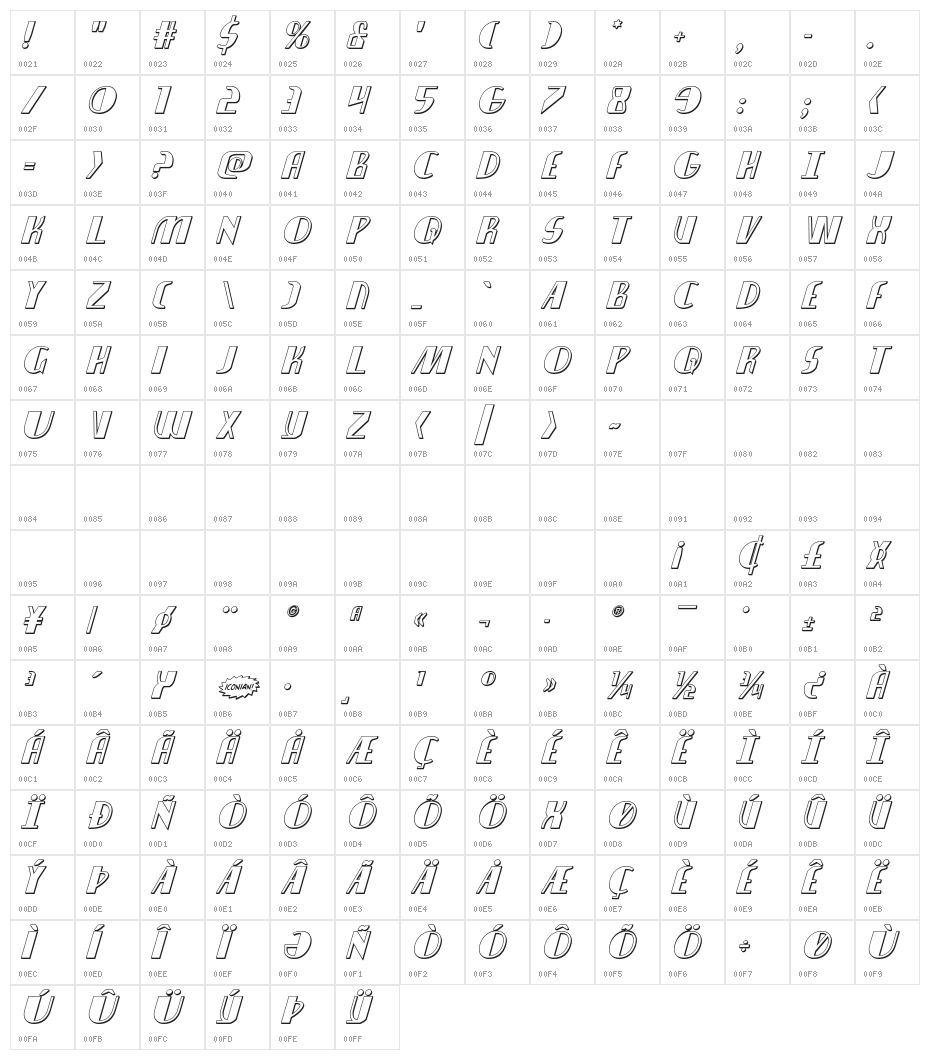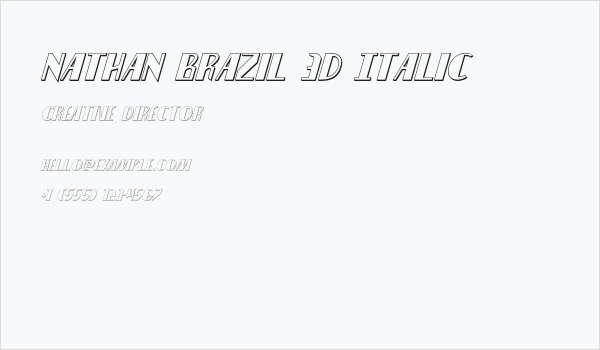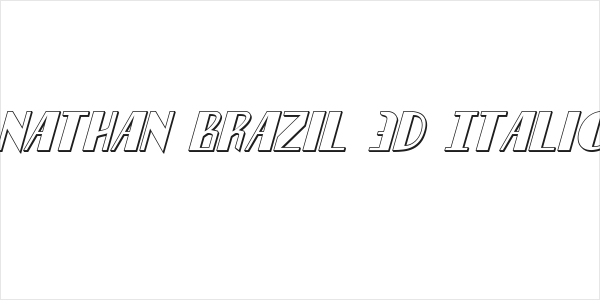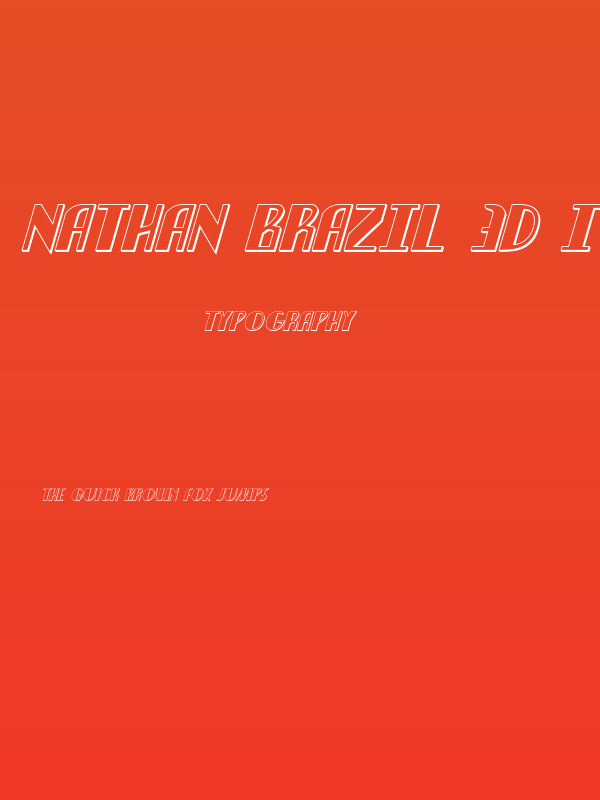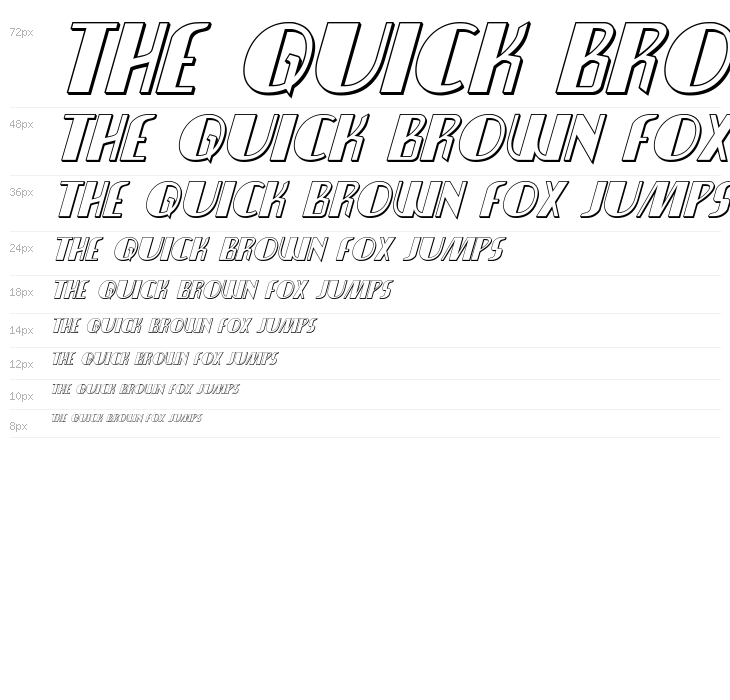
Nathan Brazil 3D Italic Font
Nathan Brazil 3D Italic Description
This font features a bold and dynamic 3D italic style that creates a sense of depth and movement. The letters are outlined, giving them a striking appearance that stands out on any background. The uppercase and lowercase characters maintain a consistent slant, enhancing the italic effect. The numerals and special characters are designed to match the boldness and style of the alphabet, ensuring a cohesive look across all text. The font's unique 3D effect makes it ideal for eye-catching designs.
Proposed ProjectsIdeal for posters, logos, and headlines where a bold and dynamic appearance is desired.